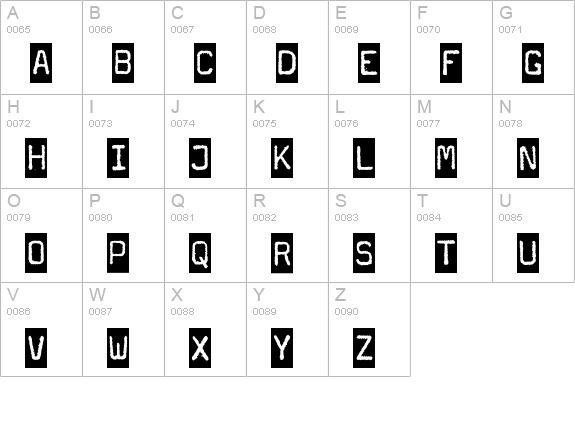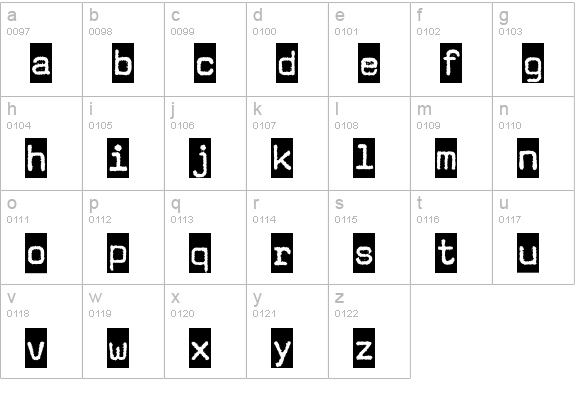
Magda-Cameo font is a stunning display typeface that combines elegance with a contemporary touch. Its intricate details and sophisticated curves make it perfect for adding a touch of class to any design project. With its unique character and charm, Magda-Cameo font is sure to captivate and engage viewers. This font is not only visually striking but also highly versatile. Whether you're designing a logo, creating a poster, or working on a branding project, Magda-Cameo font will effortlessly elevate your work to new heights. Its timeless appeal ensures that it will remain relevant and eye-catching for years to come. One of the most remarkable aspects of Magda-Cameo font is that it is available for free. Yes, you read that right! This extraordinary font can be freely downloaded at FontsMarket.com. This means that you can enhance your designs without worrying about breaking the bank. It's a fantastic opportunity to access high-quality typography without any financial constraints. Downloading Magda-Cameo font from FontsMarket.com is a breeze. Simply visit the website, locate the font, and click the download button. Within moments, you'll have this exquisite typeface ready to use in your design projects. The convenience and accessibility of this free font make it a must-have for designers and creatives of all levels. Don't miss out on the chance to enhance your designs with the beauty and elegance of Magda-Cameo font. Download it for free today at FontsMarket.com and witness the transformative power it brings to your creative endeavors.